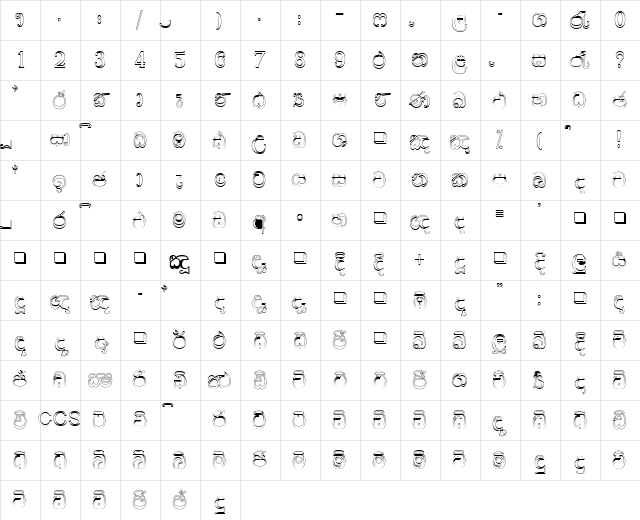
Complete DL-Ridhma-841619 Plain. glyph index. Displaying only characters natively supported by DL-Ridhma-841619 Plain. font.
DL-Ridhma-841619 is a composed and adaptable typeface that performs quietly and consistently across a wide range of design contexts.